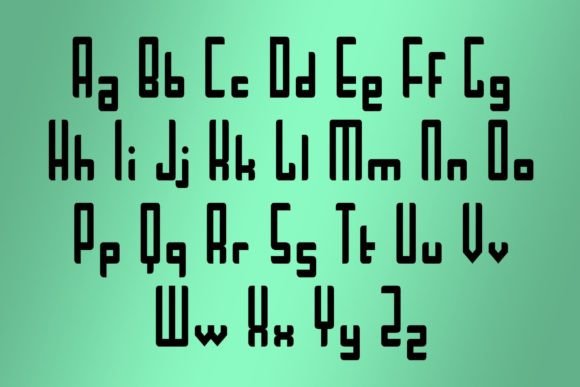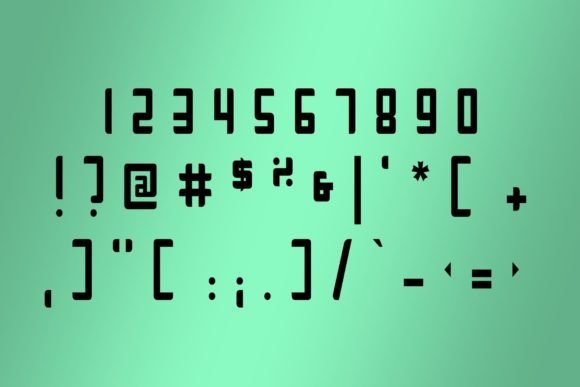
Introducing Anuman Font: The Ultimate Display Font for Creative Designs
In the world of design, typography plays a crucial role in conveying messages, evoking emotions, and creating visual identities. When it comes to making a statement, a unique display font can be a game-changer. This is where Anuman Font comes in – a distinctive and stylish font perfect for adding a touch of personality to your design projects.
What Makes Anuman Font Special?
Anuman Font is a carefully crafted display font designed to make your designs stand out. Its style is both modern and versatile, making it an excellent choice for a wide range of applications. Whether you’re working on product packaging, book covers, titles, banners, business cards, or any other design project, Anuman Font is sure to make a lasting impression.
Key Features of Anuman Font
- Unique Style: Anuman Font boasts a one-of-a-kind design that sets it apart from other fonts. Its distinctive style ensures that your designs will have a unique look and feel.
- Versatility: This font is incredibly versatile and can be used in various design projects, from print materials to digital content.
- High-Quality: Anuman Font is designed with high-quality and clarity in mind, ensuring that it looks great in any size or resolution.
- Easy to Read: Despite its unique style, Anuman Font remains easy to read, making it perfect for titles, headings, and short paragraphs.
Use Cases for Anuman Font
Anuman Font’s versatility makes it suitable for a wide range of design projects. Here are some of the most popular use cases:
- Product Packaging: Add a touch of personality to your product packaging with Anuman Font. Its unique style will help your products stand out on store shelves.
- Book Covers: Create eye-catching book covers with Anuman Font. Its distinctive style will grab the attention of potential readers and make your book cover truly memorable.
- Titles and Headings: Use Anuman Font to create stunning titles and headings for your blog posts, articles, or website content.
- Banners: Design attention-grabbing banners with Anuman Font. Its bold style ensures that your message will be seen and remembered.
- Business Cards: Add a touch of professionalism and personality to your business cards with Anuman Font.
Tips for Using Anuman Font Effectively
To get the most out of Anuman Font, here are some tips to keep in mind:
- Use it Sparingly: Anuman Font is a display font, so use it sparingly to create emphasis and visual interest.
- Pair it with Other Fonts: Experiment with pairing Anuman Font with other fonts to create a unique and harmonious typography combination.
- Adjust Font Size: Play with different font sizes to create visual hierarchy and add emphasis to your design.
- Experiment with Colors: Try out different colors to find the perfect match for your design and brand identity.
| Font Name | Anuman Font |
| Author | denestudios |
Anuman Font is a unique and versatile display font that’s perfect for designers and crafters looking to add a touch of personality to their design projects. Its distinctive style, high-quality design, and ease of use make it an excellent choice for a wide range of applications. Whether you’re working on product packaging, book covers, titles, banners, business cards, or any other design project, Anuman Font is sure to make a lasting impression.